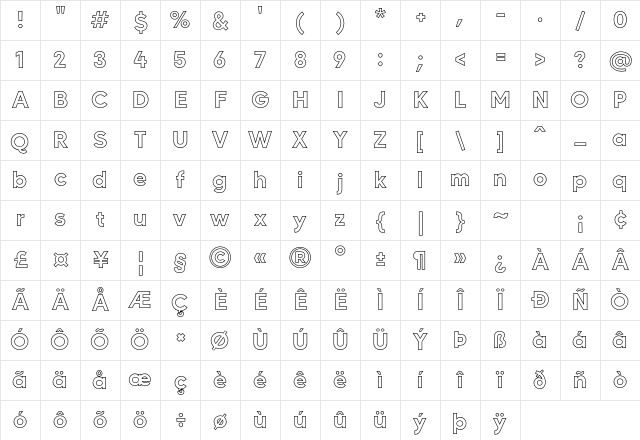
Complete MADE CARVING Outline Personal Use Bold glyph index. Displaying only characters natively supported by MADE CARVING Outline Personal Use Bold font.
MADE CARVING Outline Personal Use is built around its visual character rather than neutral utility - its distinctive forms are designed to make an impression at display sizes. Its bold stroke weight gives it real presence on the page.
Font Pairing: Pair with a clean neutral sans-serif for body copy to let MADE CARVING Outline Personal Use's character lead without overwhelming the composition.
Pro Tip: Use MADE CARVING Outline Personal Use exclusively at display sizes - it was designed to be seen, not read at length. Let a neutral companion handle body copy.